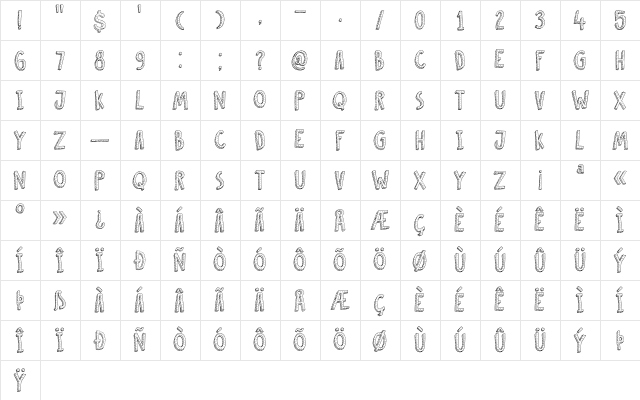
DK Cosmo Stitch Regular
| Foundry | David Kerkhoff |
| Designer | David Kerkhoff |
Design Context for DK Cosmo Stitch Typeface
DK Cosmo Stitch is a composed and adaptable typeface that performs quietly and consistently across a wide range of design contexts.